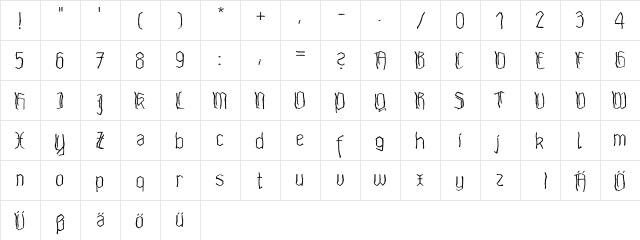
Waldschraz Waldschraz
| Foundry | Fabian Kirst |
| Designer | Fabian Kirst |
Design Context for Waldschraz Typeface
Waldschraz is a composed and adaptable typeface that performs quietly and consistently across a wide range of design contexts.